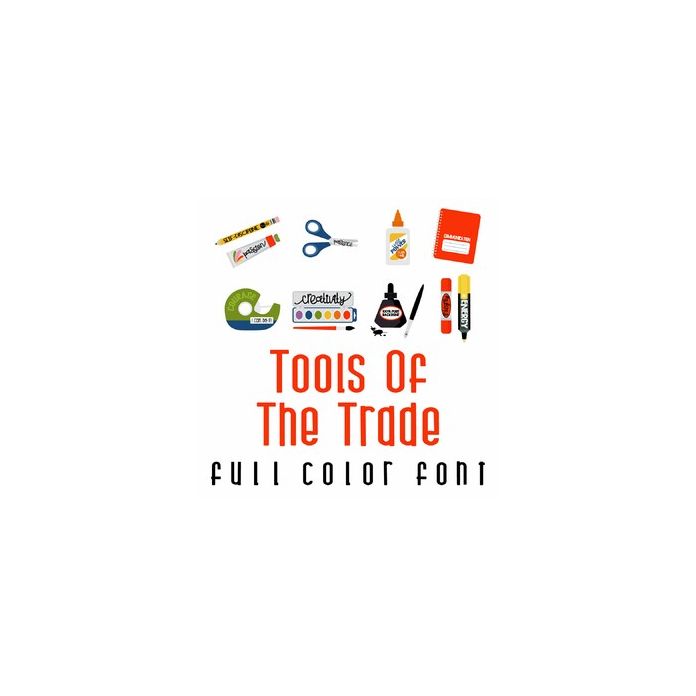
Tools of the Trade Full Color Font
A full-color font stores svg data inside an Open Type font file. This font will look black if not used in a program like Silhouette Studio which is compatible. Images can be pulled apart with some vector programs like Illustrator and cut with your cutting machine. This adorable full color doodlebat font features fun school supplies with encouraging words. Perfect for classrooms, teachers, school, cards, crafts, gifts, decor, scrap book pages, planner stickers and more!